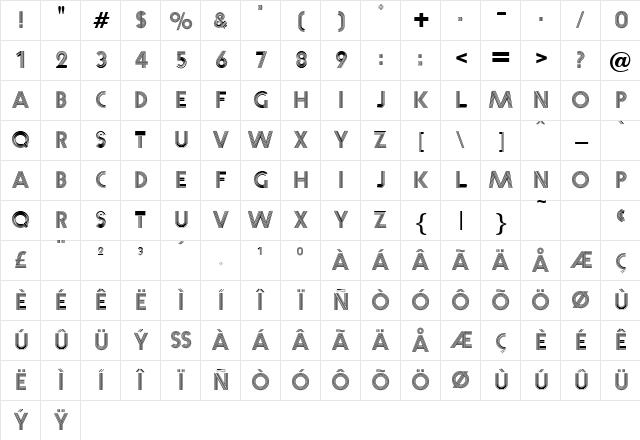
Acton Regular
Acton Family
Design Context for Acton
Acton is a composed and adaptable typeface that performs quietly and consistently across a wide range of design contexts.